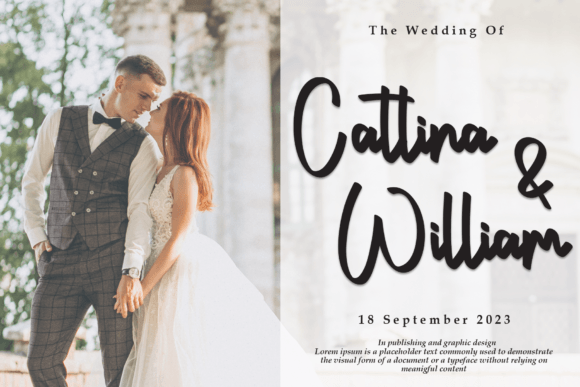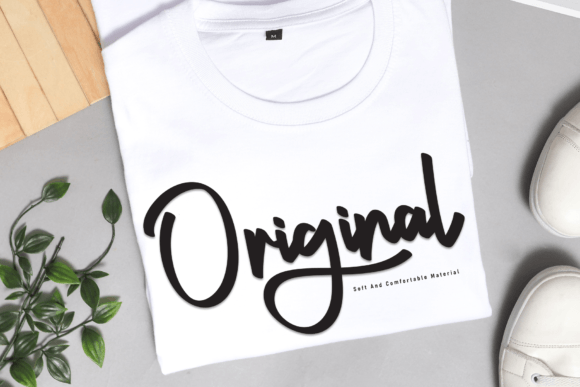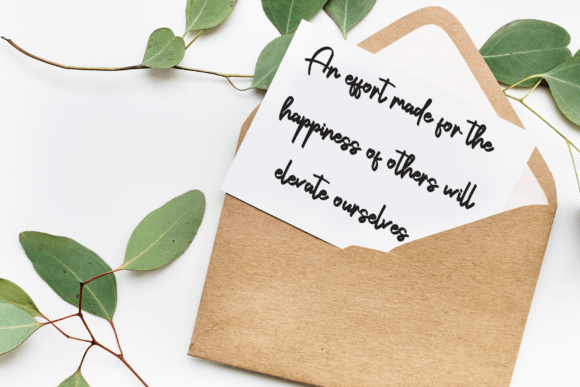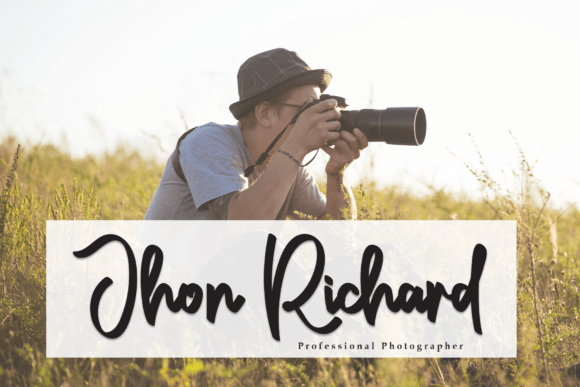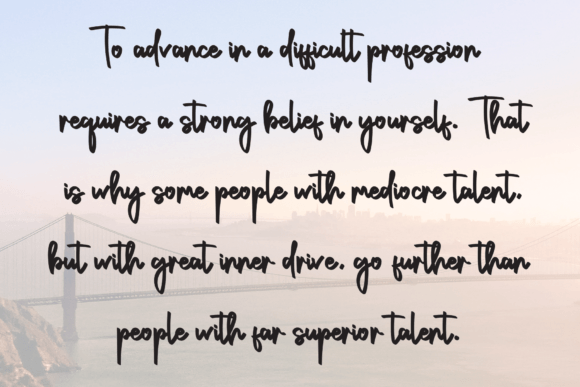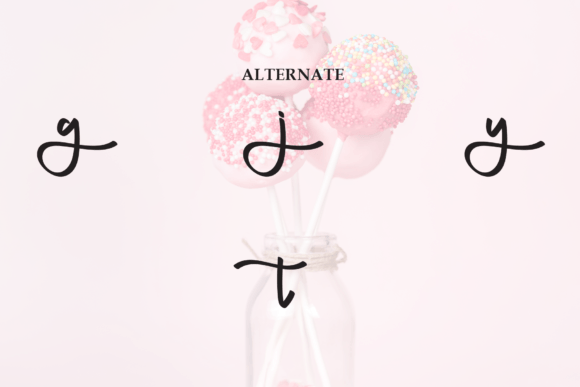
Candycute Font: The Sweetest Addition to Your Design Arsenal
Are you a designer or crafter looking for a font that can add a touch of sweetness and friendliness to your projects? Look no further than Candycute Font! This beautiful handwritten font is perfect for a wide range of designs, from digital art to craft projects, and is sure to become a favorite in your collection.
What is Candycute Font?
Candycute Font is a sweet and friendly handwritten font that is designed to bring a touch of whimsy and charm to your designs. Its natural and unique style makes it incredibly fitting to a large pool of designs, from kids’ party invitations to social media graphics, and even branding and packaging.
Unique Characteristics of Candycute Font
So, what sets Candycute Font apart from other fonts? Here are a few of its unique characteristics:
- Handwritten style: Candycute Font has a beautiful, handwritten style that gives it a personal and friendly feel.
- Natural and unique: The font’s natural and unique style makes it perfect for designs that need a touch of whimsy and charm.
- Versatile: Candycute Font is incredibly versatile and can be used for a wide range of designs, from digital art to craft projects.
Uses for Candycute Font
The possibilities are endless when it comes to using Candycute Font! Here are a few ideas to get you started:
- Kids’ party invitations: Candycute Font is perfect for creating adorable kids’ party invitations that will delight parents and kids alike.
- Digital art: Add a touch of sweetness to your digital art with Candycute Font, perfect for creating graphics, illustrations, and more.
- Social media graphics: Use Candycute Font to create eye-catching social media graphics that will help your brand stand out.
- Branding and packaging: Candycute Font is a great choice for branding and packaging, adding a touch of whimsy and charm to your products.
- Craft projects: Candycute Font is perfect for craft projects, such as card making, scrapbooking, and more.
Why Choose Candycute Font?
So, why choose Candycute Font over other fonts? Here are a few reasons:
- Easy to read: Candycute Font is easy to read, even at small sizes, making it perfect for a wide range of designs.
- Unique style: The font’s unique style sets it apart from other fonts, ensuring your designs will stand out.
- High-quality: Candycute Font is a high-quality font, designed to deliver exceptional results.
Tips for Using Candycute Font
Here are a few tips for getting the most out of Candycute Font:
- Experiment with colors: Candycute Font looks great in a variety of colors, so don’t be afraid to experiment and find the perfect hue for your design.
- Pair with other fonts: Candycute Font pairs well with other fonts, so try combining it with a bold font for added impact.
- Use it sparingly: While Candycute Font is perfect for a wide range of designs, using it sparingly can add more impact to your design.
In conclusion, Candycute Font is a sweet and friendly handwritten font that is perfect for designers and crafters looking to add a touch of whimsy and charm to their projects. Its natural and unique style makes it incredibly fitting to a large pool of designs, and its versatility ensures it can be used for a wide range of projects. So why wait? Add Candycute Font to your collection today and start creating beautiful designs that will delight and inspire!